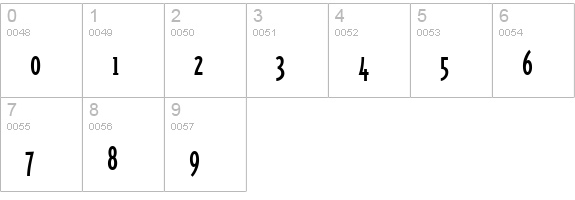
TriplexConSerOldstyle Regular Font Details
TriplexConSerOldstyle Regular is the standard, neutral variant in the TriplexConSerOldstyle typeface family \xE2\x80\x94 well suited to general body text, paragraphs, and standard typographic work.
TriplexConSerOldstyle Regular font is a timeless and elegant typeface that exudes sophistication and class. Its classic design with a touch of old-world charm makes it perfect for a wide range of projects, from elegant invitations to professional documents. This font features clean and well-defined lines, making it highly legible even at smaller sizes. Each letter is meticulously crafted, capturing the essence of traditional serif fonts while adding a unique twist. The slightly slanted serifs and subtle curves give the font a sense of movement and grace. One of the best things about TriplexConSerOldstyle Regular font is that it is freely available to download at FontsMarket.com. This means that you can easily add this stunning font to your collection without any cost. Whether you are a professional designer or an aspiring typographer, this font is a must-have in your toolbox. With its versatility and timeless appeal, TriplexConSerOldstyle Regular font can be used in various design projects. It is equally suitable for branding and logo design, as well as for creating elegant headlines and titles. It also works well for body text, providing a pleasant reading experience. Whether you are working on a personal project or a professional assignment, TriplexConSerOldstyle Regular font will add a touch of sophistication and elegance to your designs. Its classic design and freely available download make it a valuable asset for any designer or typographer. So go ahead and download this font from FontsMarket.com and let your creativity soar.